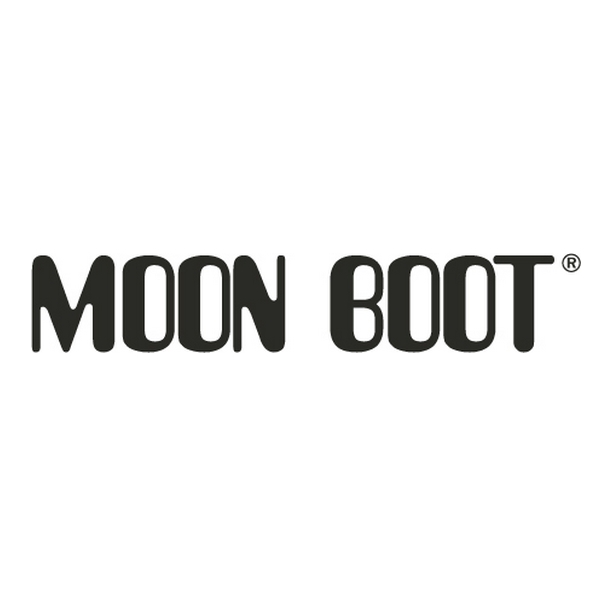
Moon Boot Font
ApparelMoon Boot is an Italian brand that was founded in 1970 by Italian ski instructor Giancarlo Zanatta. The brand is known for its line of insulated, waterproof boots that are worn by skiers, hikers, and other outdoor enthusiasts.
The Moon Boot logo was likely created using Amelia, created by Stan Davis in 1964. The design copies the MICR figures to give it a digital look. More details about it can be found here.